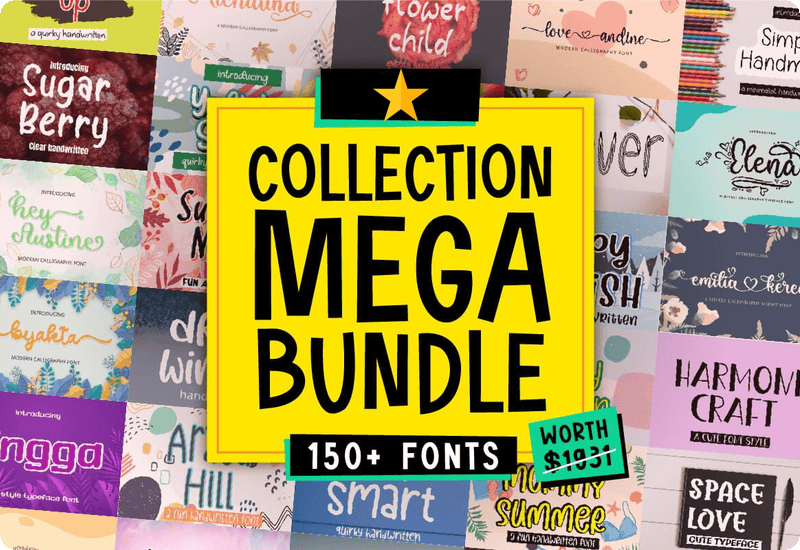
What is the Mega Font Bundle?
The Mega Font Bundle is a collection of 169 high-quality fonts valued at $1931, available for free. This bundle includes a wide range of fonts, from elegant scripts to bold display fonts, making it perfect for any type of project.
Each font in this bundle has been carefully selected to ensure top-notch quality and versatility. Whether you are working on digital designs, print media, or crafting projects, this bundle has you covered.
Exploring the Font Collection
Let’s dive into some of the fantastic fonts included in this bundle:
- Market Love Display-Schriftarten Schriftart: A playful and eye-catching display font.
- Valeska Script & Handwritten Font: Perfect for elegant and personal projects.
- Hilary Patricia Script & Handwritten Font: A charming script font with a handwritten feel.
- Happy Garden Fuentes Caligráficas Fuente: Ideal for whimsical and fun designs.
- Dear Holiday Skript-Schriftarten Schriftart: A festive font perfect for holiday-themed projects.
These are just a few examples. The bundle includes fonts for every occasion and style, from the quirky “Bubble Cake Display Font” to the sophisticated “The Georgia Display Font.”